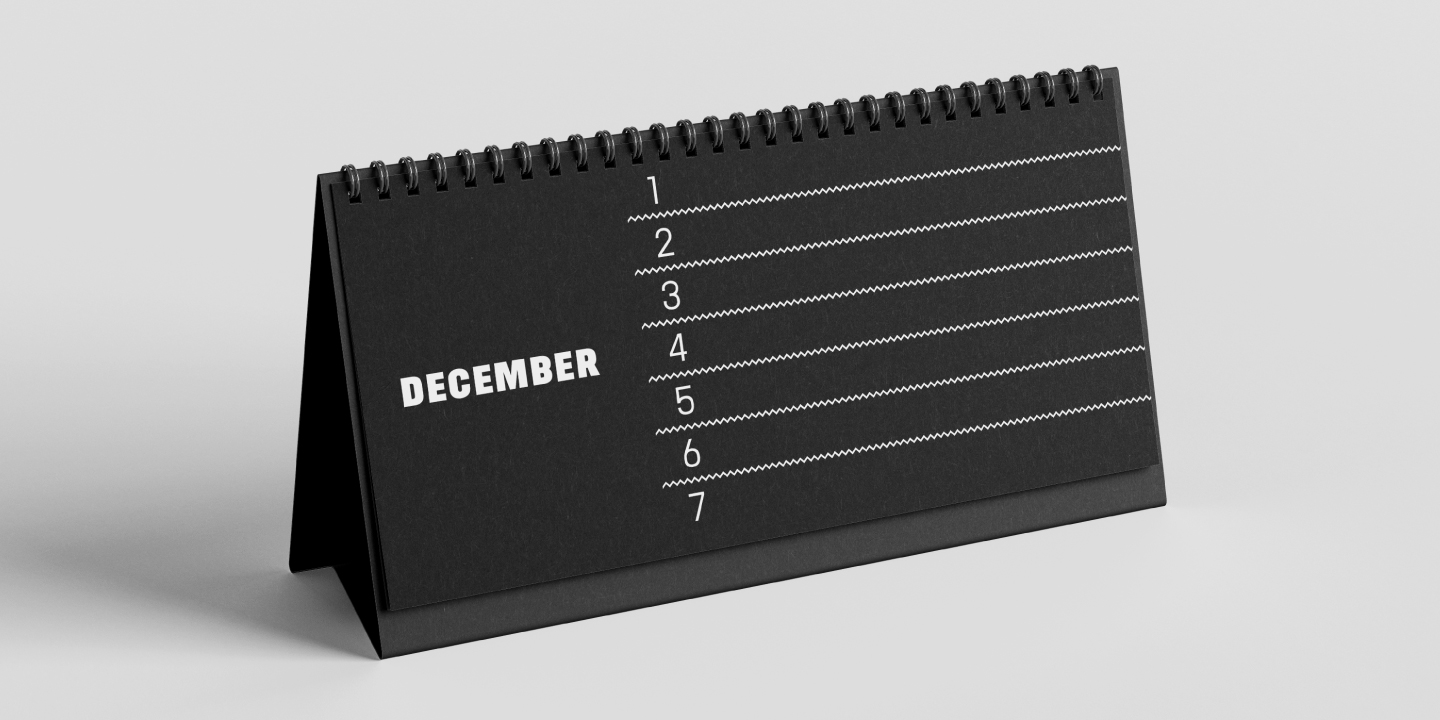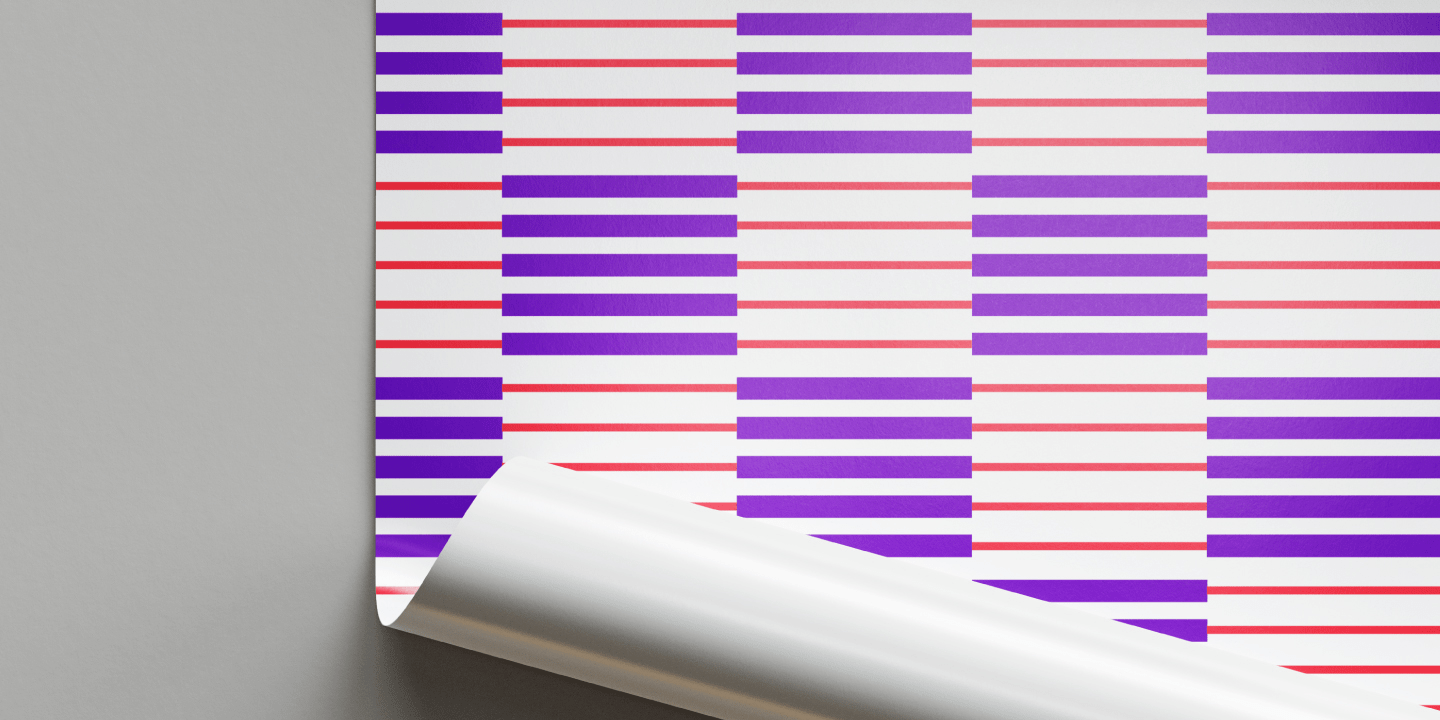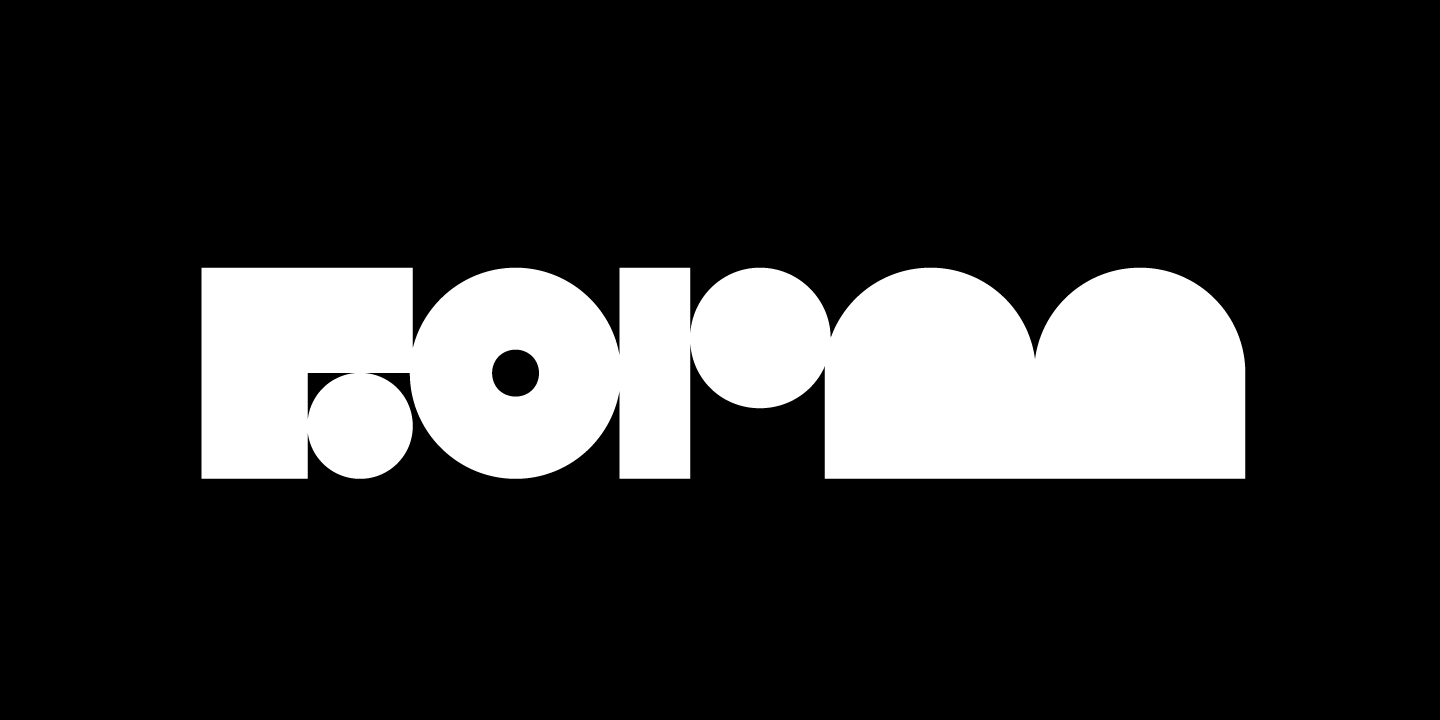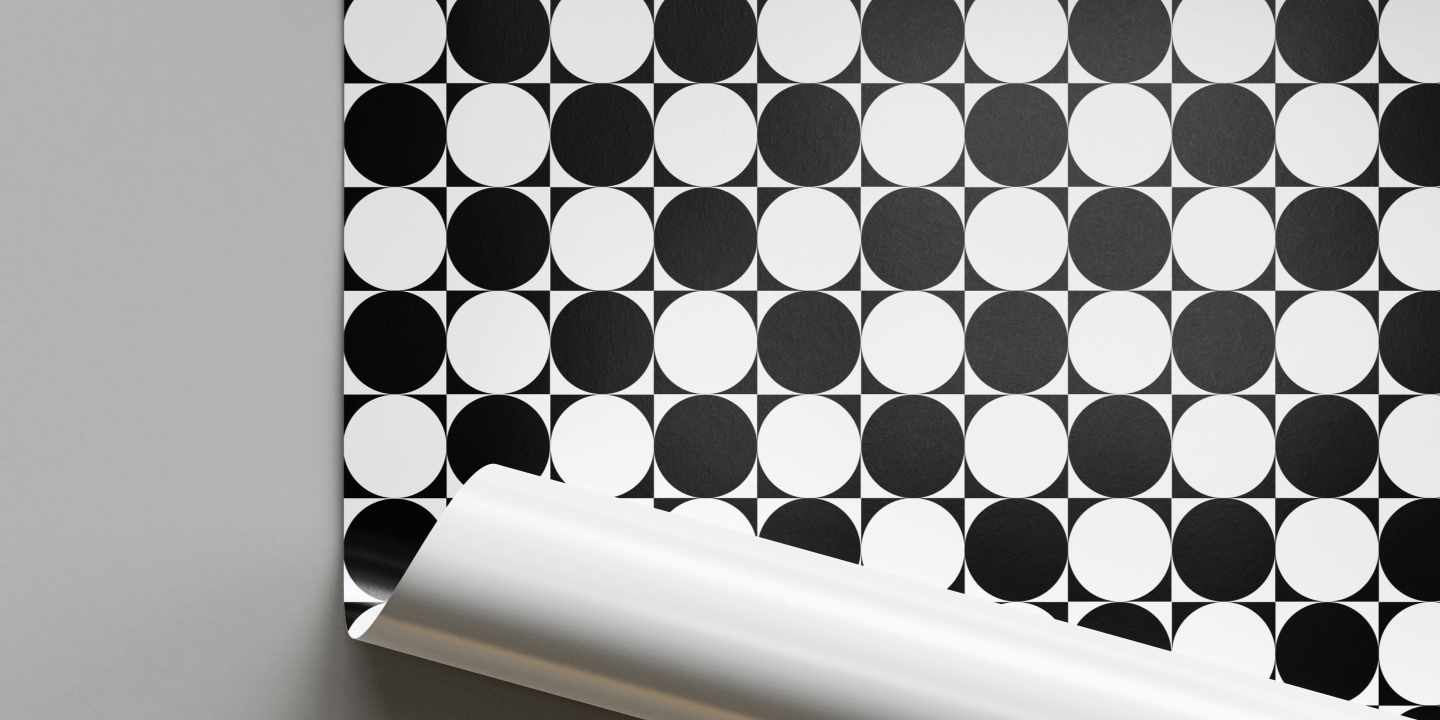
About FormPattern
FormPattern is an easy to use set of shapes with endless possibilities. It is excellent for making borders and frames, patterned lines and areas, or for simple ornamentation. Use it to add visual interest to books, end marks to articles, intro marks to…